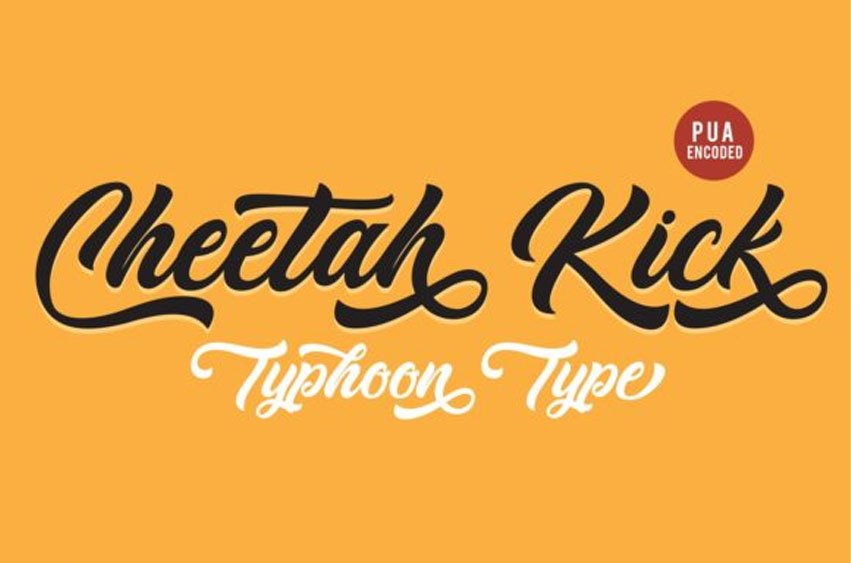
Cheetah Kick Font is a striking script font.
It’s perfect for logos, name tags, advertising, product packaging, clothing, social media, and every other design which needs an elegant, yet striking typeface.